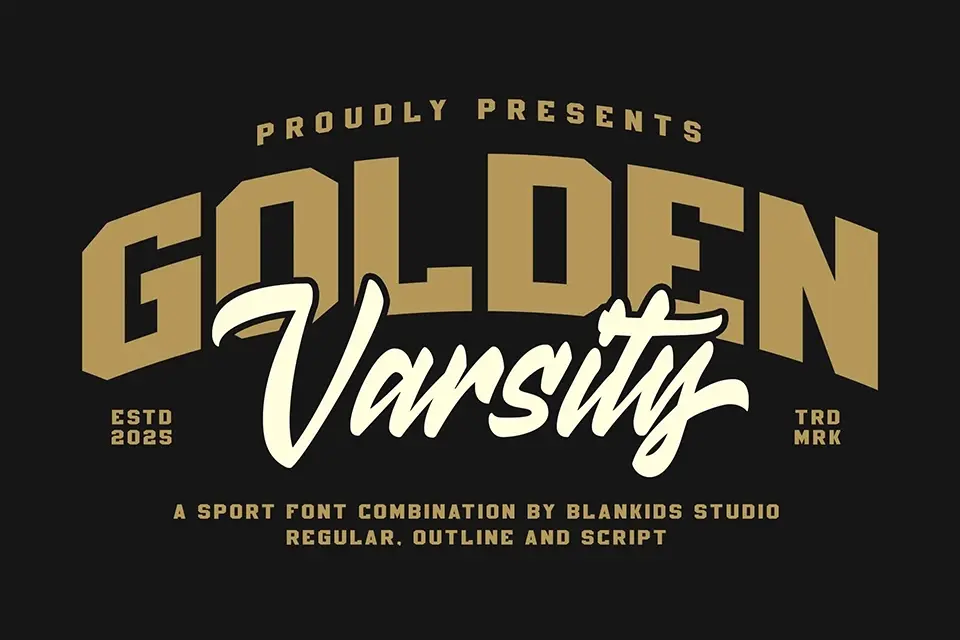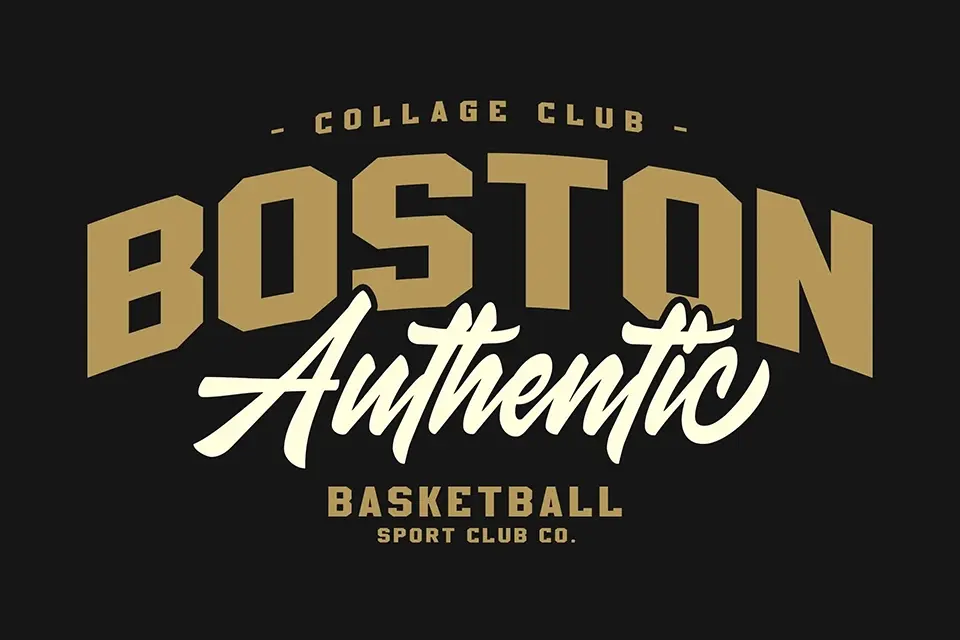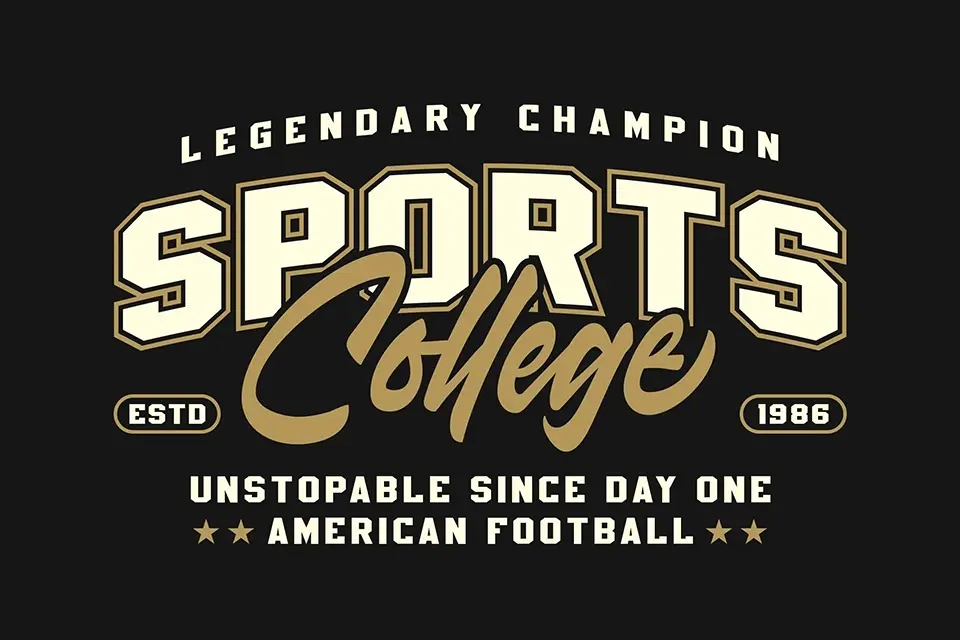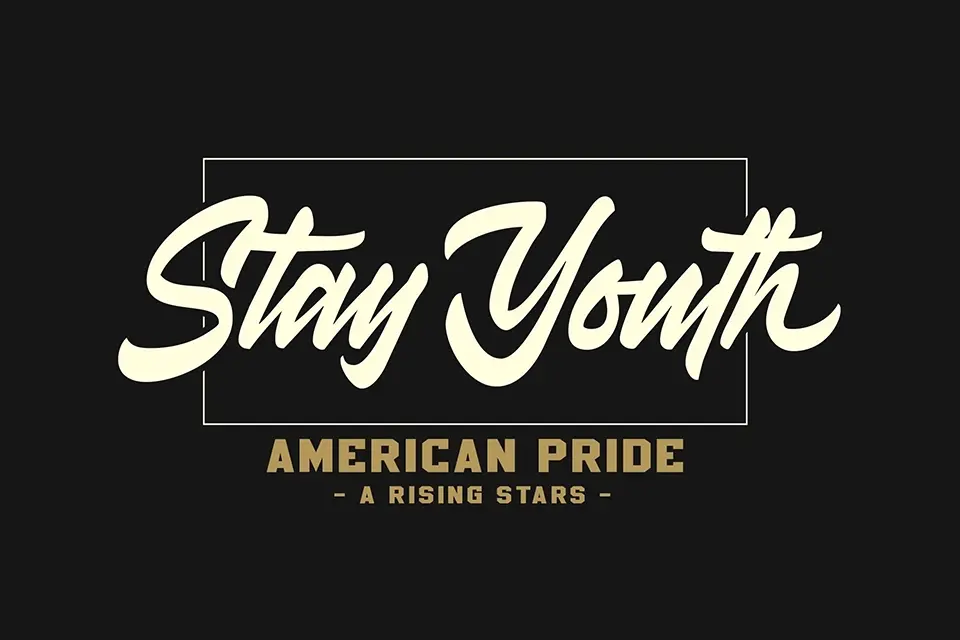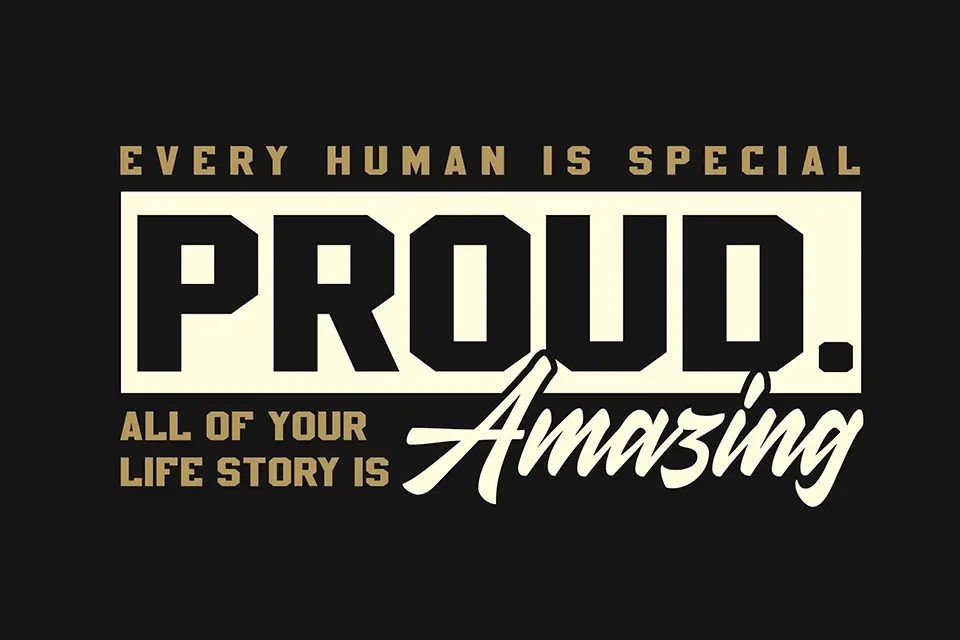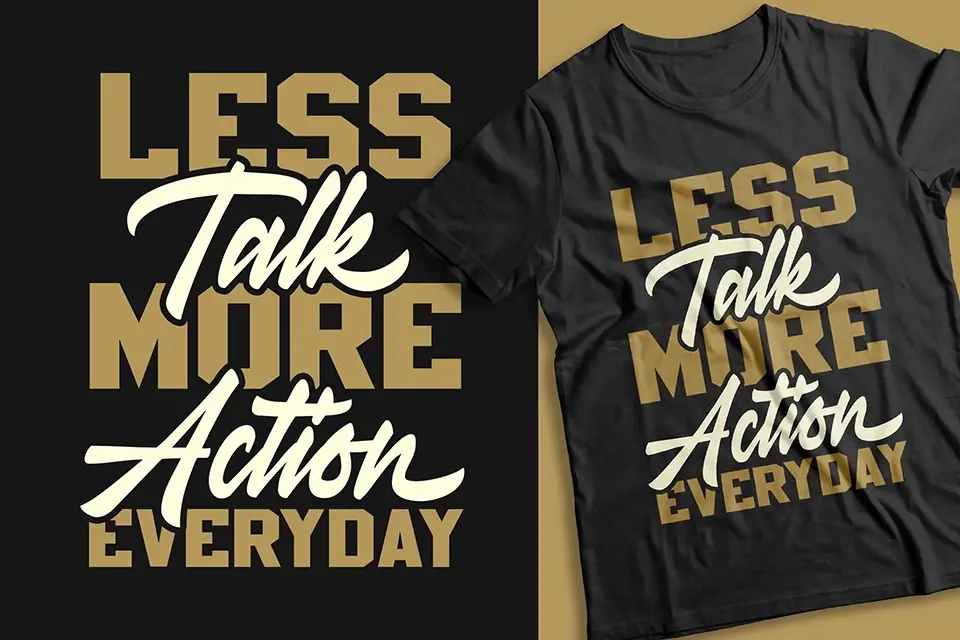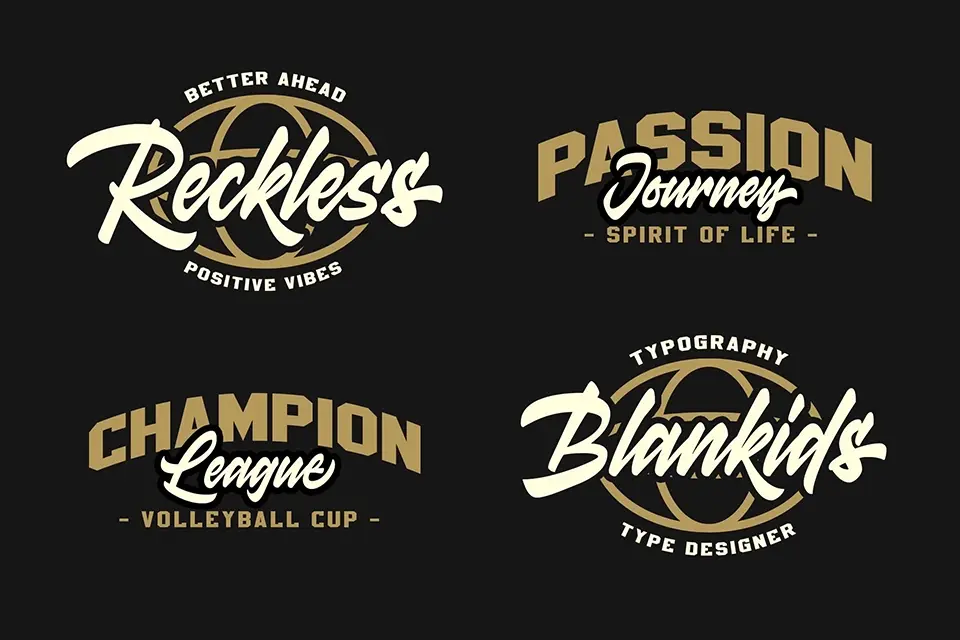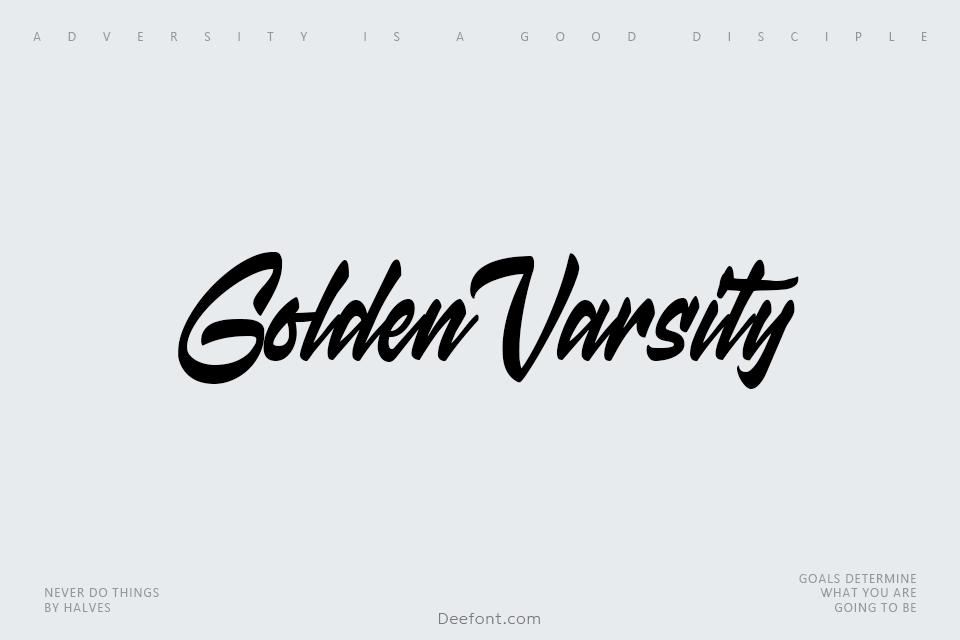
Golden Varsity Script Font
Golden Varsity is a bold, college-inspired varsity display font that combines retro sports aesthetics with modern design. Featuring full uppercase and lowercase letters, numerals, and punctuation, this sport font combination delivers a punchy, vintage varsity look perfect for branding, logos, posters, and promotional materials. With its distinctive sporty character and professional quality, Golden Varsity brings authentic collegiate charm to any creative project requiring strong typographic impact.